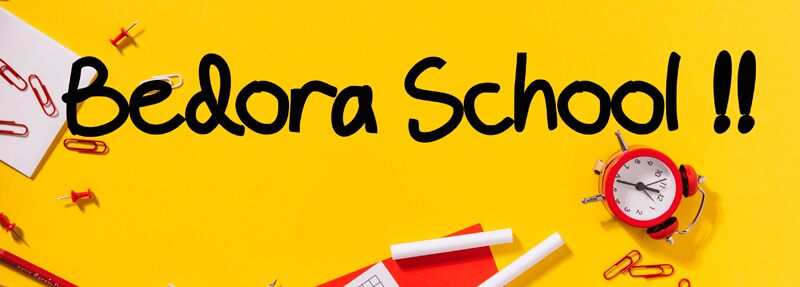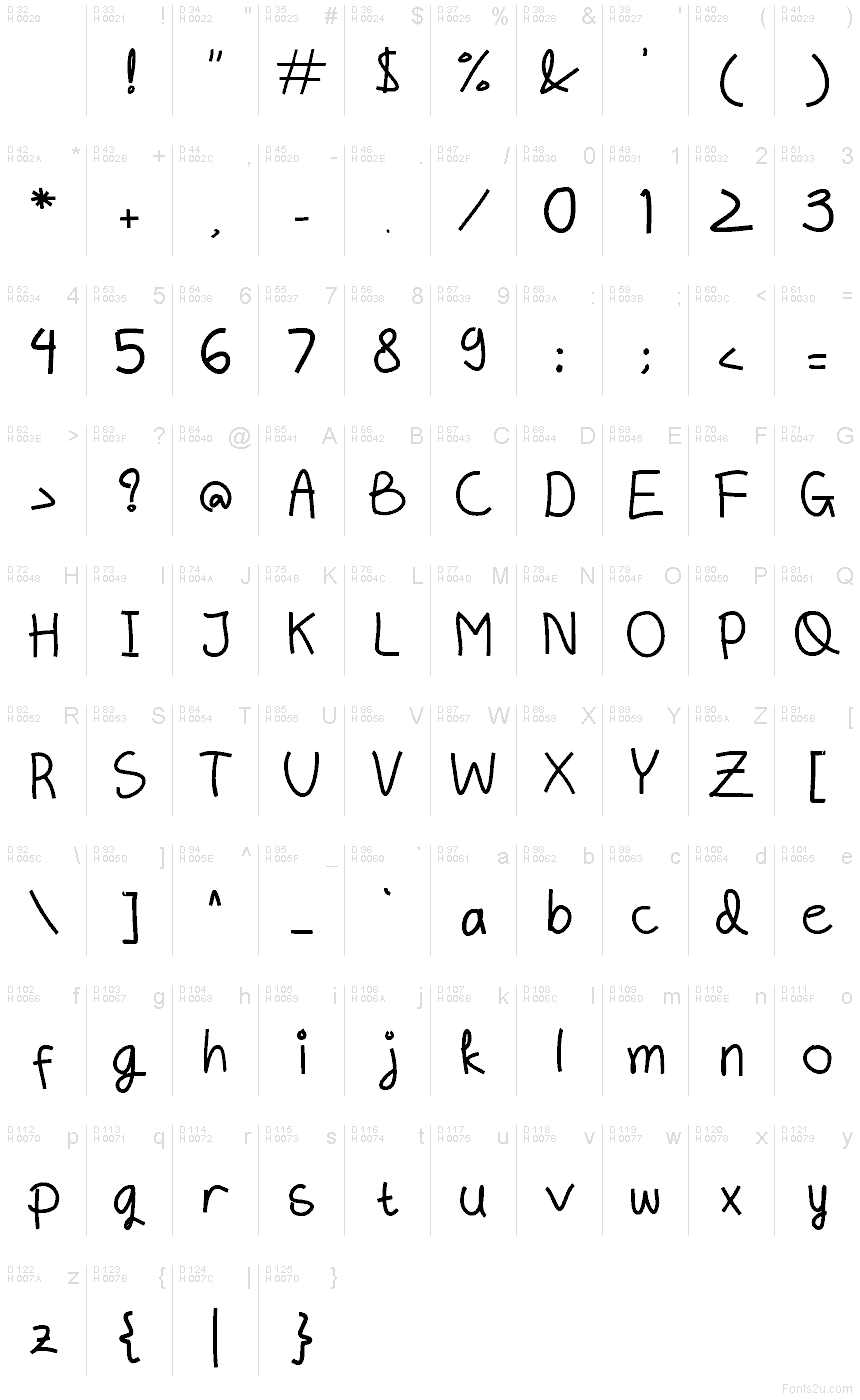
Free Bedora School Regular
Bedora School font by Ary Putra is a free handwritten typeface that captures the easy, chalk-on-whiteboard feel of a friendly classroom. Rounded strokes, open counters, and a gentle bounce give it a warm, approachable rhythm—readable at a glance, yet playful enough to spark curiosity. It looks like quick marker lines that stayed neat, so your message feels personal without turning messy.
Using Bedora School, your kids’ worksheets, classroom posters, bulletin boards, storybook covers, craft labels, birthday invites, and educational YouTube thumbnails will feel cheerful and clear. This free font holds together well in short sentences and big headings; keep body copy brief. For balance, pair it with a simple rounded sans and let Bedora handle the headlines.